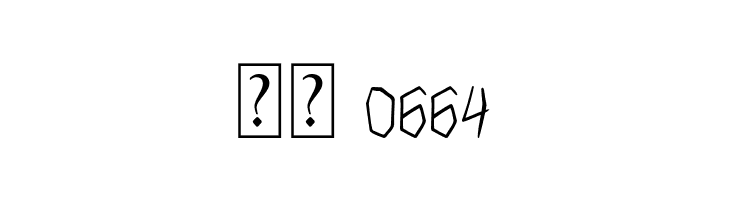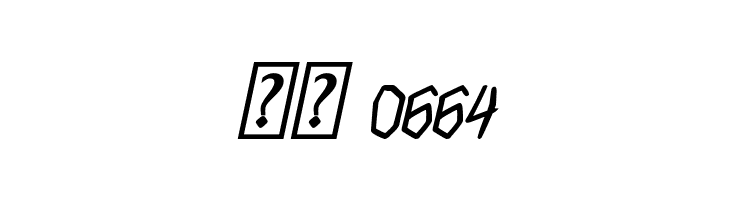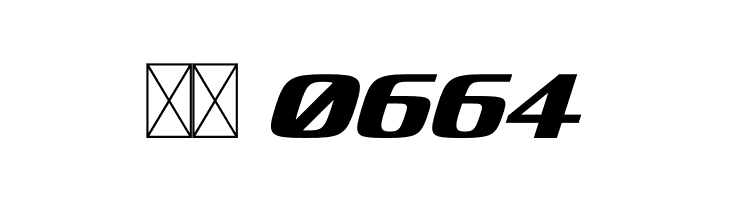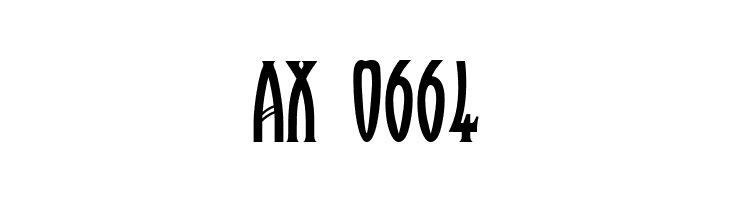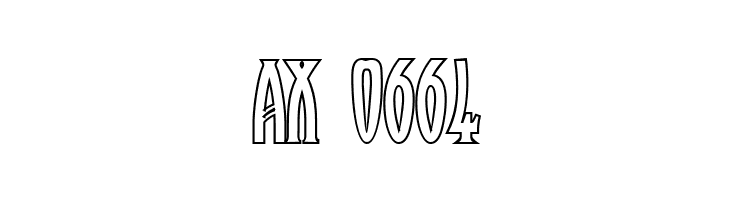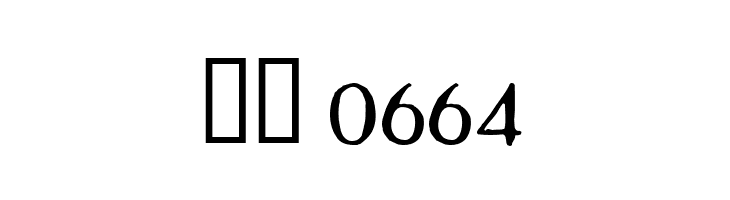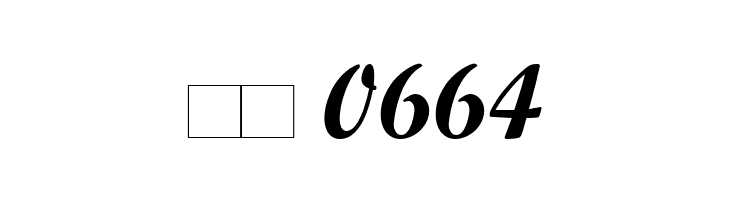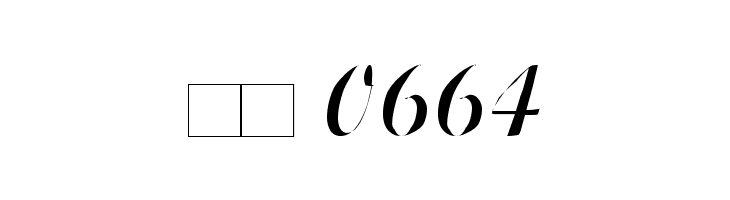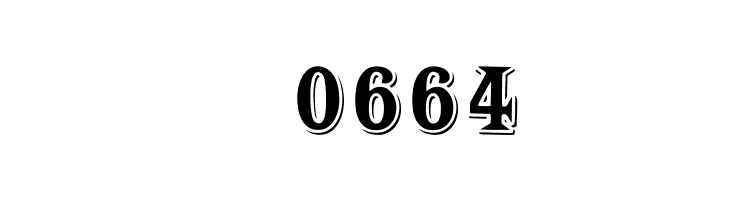
A decorative font featuring whimsical, hand-drawn illustrations with a woodcut style.
Hand-drawn woodcut-style medical icon set.
Cartoonish, woodcutter-themed pictorial font with unique illustrations for each character.
A bold, textured font with circular backgrounds and a woodcut style.
A bold, decorative typeface with a vintage, playful style and intricate detailing.
Silhouette-based decorative font using work-themed figures as letterforms.
Illustrative font featuring workers and job scenes as characters.
( A personally designed font that uses chunky lettering to create a fun and cool style that calls back to the wild and irreverent 90s style. )
A playful, bold font with irregular, dynamic letterforms.
An illustrative, cartoon-style decorative font with unique artwork for each character.
A bold, jagged font with a shattered, chaotic design.
A bold, jagged, and dynamic font with an italic slant, resembling shattered glass.
A playful, informal font with rounded, consistent strokes and a handwritten feel.
A collection of vintage-style illustrative characters depicting literary themes.
A playful, handwritten-style font with dynamic uppercase and bold lowercase letters.
A bold, brush-textured font with a rugged, hand-drawn appearance.
A bold, ornate blackletter font with intricate, angular strokes.
A bold, gothic Blackletter font with intricate, medieval-style details.
An intricate blackletter font with a medieval, gothic style.
An ornate blackletter font with gothic, medieval influences.
A bold, italicized, handwritten font with an edgy, dynamic style.
A rugged, hand-drawn font with sharp, angular lines and an edgy aesthetic.
A display font made up of illustrated human faces for each character.
A whimsical collection of artistic symbols featuring eyes and abstract shapes.
A highly stylized, abstract font with sharp, angular lines and a chaotic aesthetic.
A bold, narrow font with elongated characters and a modern, artistic style.
A bold, outlined font with art deco influences, featuring tall, narrow characters.
A bold, decorative font with a shadow effect and angular serifs.
An elegant, outlined font with tall, narrow characters and a modern aesthetic.
A bold, geometric font with a futuristic, digital aesthetic.
A futuristic, angular font with sharp edges and geometric shapes.